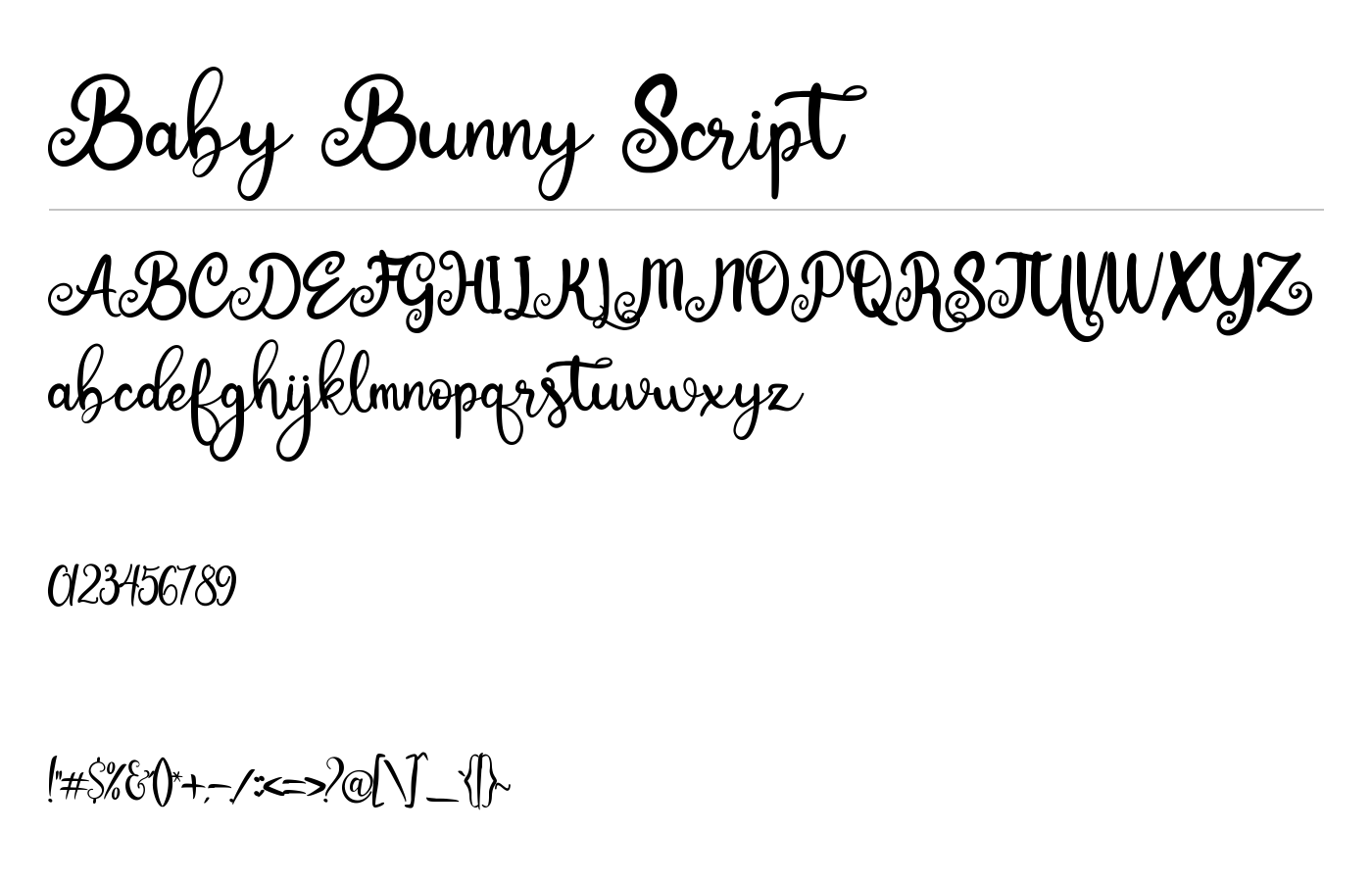
Baby Bunny Script is a charming, playful script font featuring smooth, flowing lines and whimsical curls, especially in its uppercase letters. It has a light, elegant feel with moderate contrast and rounded strokes, making it perfect for designs that want to convey friendliness and creativity. This font works beautifully in branding for children’s products, invitations, and casual, fun headlines where a touch of personality is desired.
Baby Bunny Font
About Baby Bunny Font
| Font family | Baby Bunny Font |
| Designer | Burhan Afif |